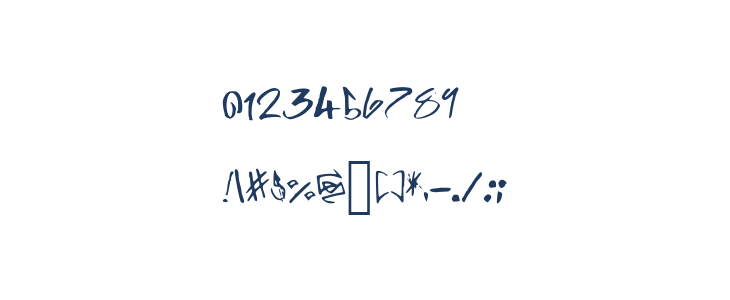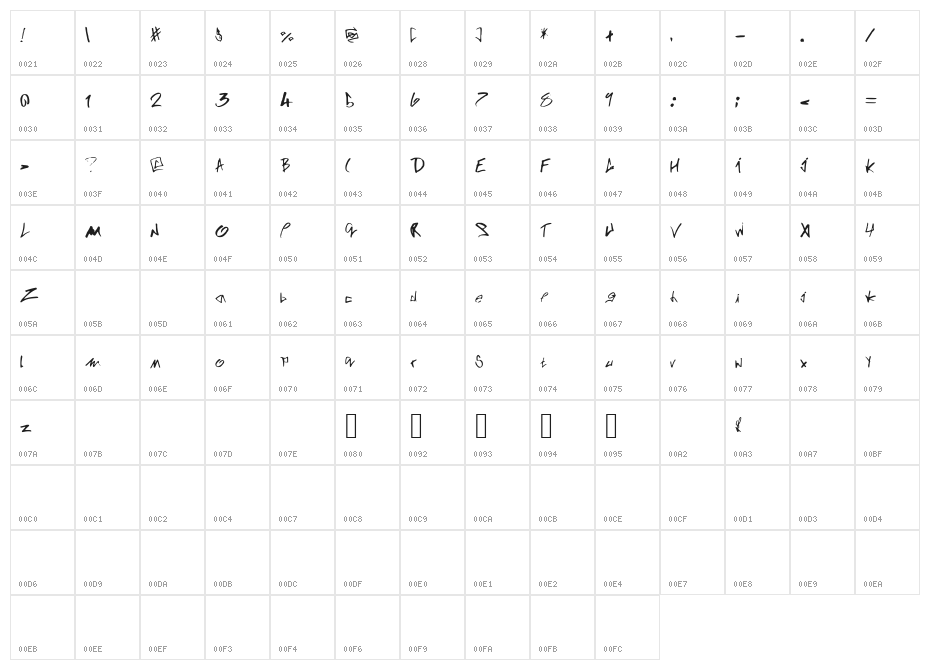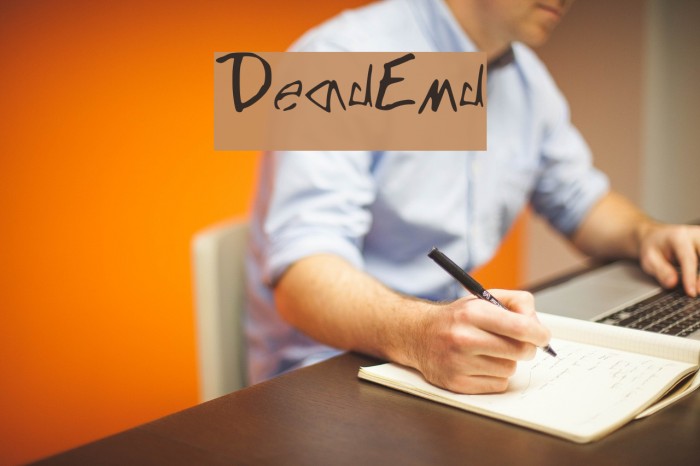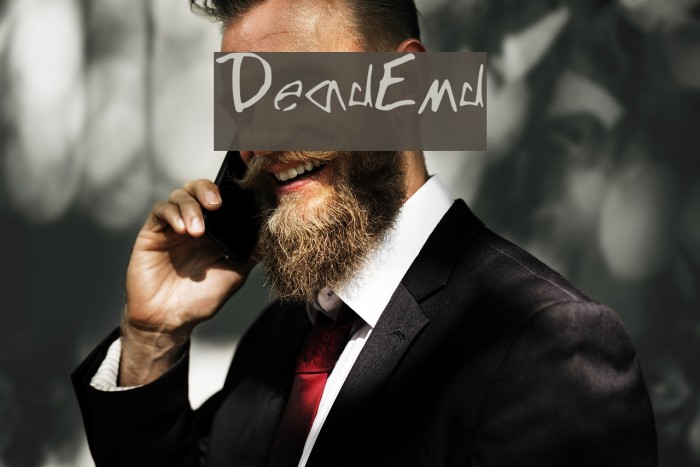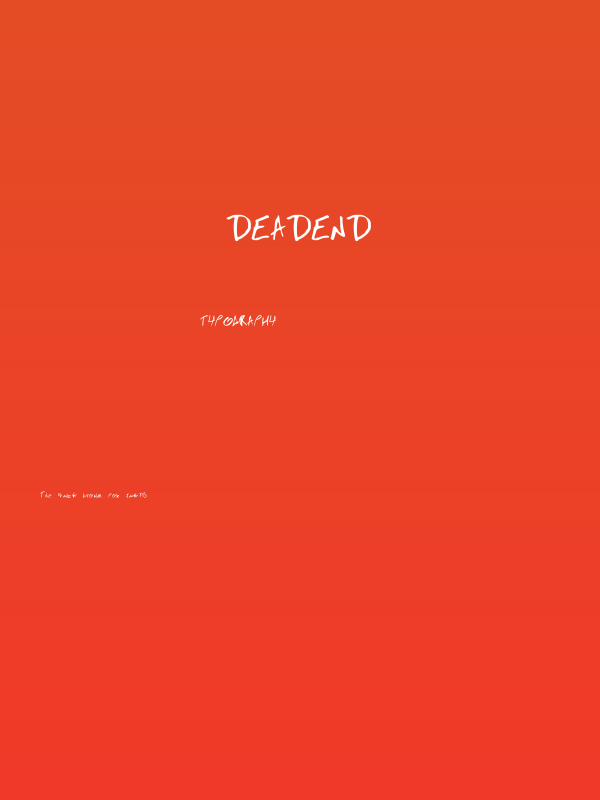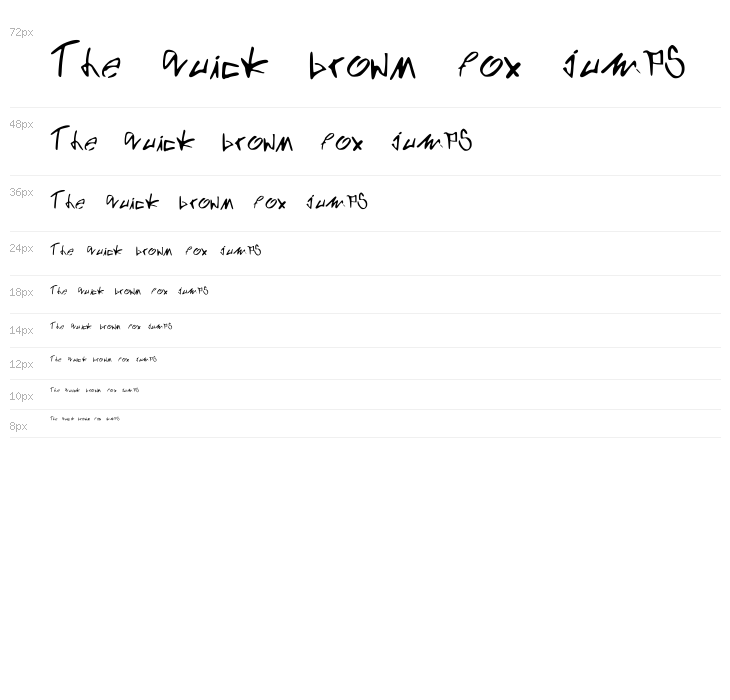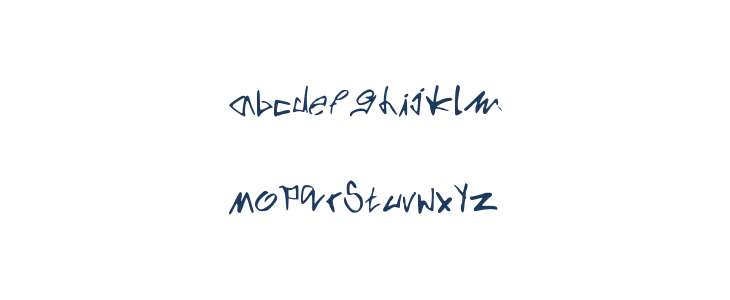
DeadEnd Font
DeadEnd Description
This font exhibits a dynamic and edgy style, characterized by its sharp, angular strokes and irregular baseline. The uppercase letters are bold and assertive, with a sense of movement and energy, while the lowercase letters maintain a consistent yet slightly chaotic appearance. The numerals are distinct and maintain the same energetic flair, making them stand out. Special characters are creatively designed, adding to the font's overall unique and artistic feel. This font is ideal for projects that require a bold statement or an unconventional look.
| Overall Style | Modern, Artistic |
| Proposed Projects | Ideal for album covers, graffiti art, posters, and branding that requires a bold, unconventional look. |